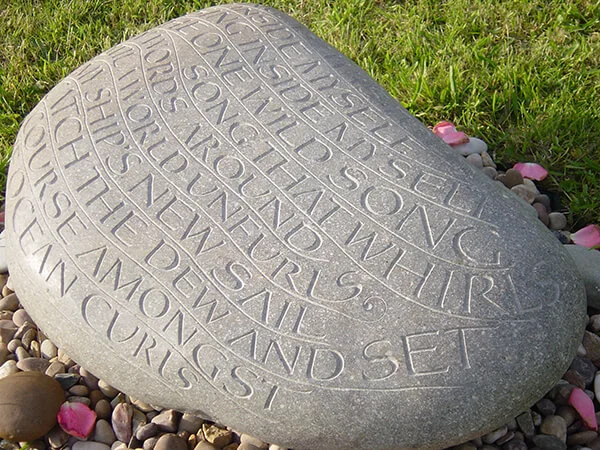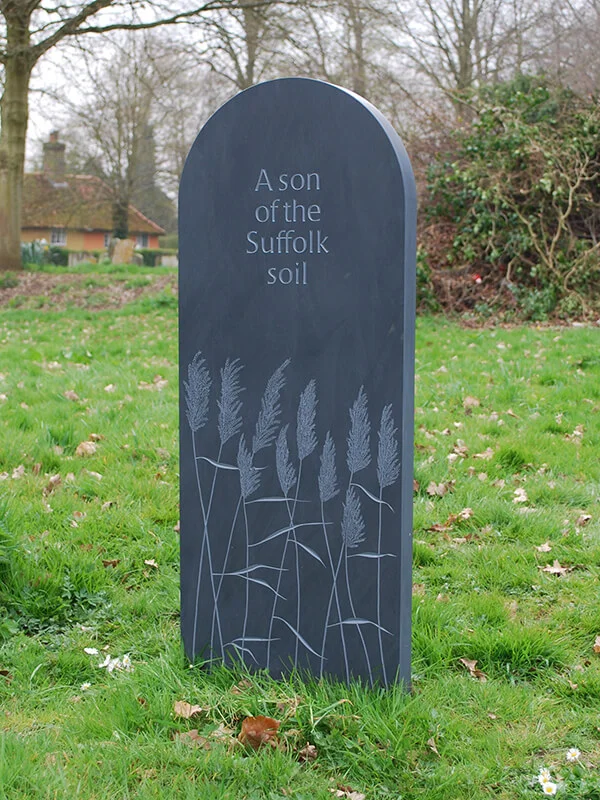
The expressive power of hand-carved lettering cannot be overstated. Letters that have been drawn and then carved by hand give the chosen words weight and meaning.
“It is perfect: modest, gentle and enduring, like our memories of Nicholas.” Libby Purves, client and patron of the Lettering Arts Trust, of the memorial to her son, Nicholas Heiney, pictured, by John Das Gupta.
“It is perfect: modest, gentle and enduring, like our memories of Nicholas.”
Libby Purves, client and patron of the Lettering Arts Trust, of the memorial to her son, Nicholas Heiney, pictured, by John Das Gupta.
Their sculptural  forms have a presence and a humanity that can’t be matched by a machine-made memorial. When an artist carves these letters, whether for a gravestone or a private sculpture, their spacing, depth and shape all contrive to create movement within meaning and give life and character to the letters. There is a solemn comfort in knowing that the carved words will enter the landscape, where they will remain for centuries.
The best headstones or gravestones express the character of the lost in a remarkable way. Whether highly decorative or restrained and simple, memorials made by artists are testaments to our love for a lost person. It is this act, the creation of a personal, individual tribute that can be immensely healing to the bereaved. Many of our clients find that the process of working with an artist is enormously comforting. Visiting their studio and discussing design ideas, you are comforted knowing that you’re creating something beautiful to honour their memory.
One client writes of the benefit of this collaborative process: “The first visit to the artist’s workshop was a revelation, and I was able to take my time. I was immediately aware of the great quality of the artist’s work and his wide range of approaches, his knowledge of materials and lettering. Every time I visit my husband’s grave I feel happy to have made him a headstone I love and that he would have loved. I have happy memories of the whole experience that took place at the lowest time in my life.”
Wherever possible, we recommend a visit to the artist’s studio.  You will be able to discuss the design, see examples of their work and look at samples of different materials available to understand how they affect the finished result.
Headstone by Stuart Buckle
Some people start with a clear idea of what they want in terms of style and wording, others are only just feeling their way. It isn’t necessary to have a specific idea, just a general sense of the overall feel of what you’re looking for – traditional or contemporary, elaborate or simple. Together you work on the look, the lettering and the wording.
You collaborate closely, using mementos such as photographs, favourite texts, letters and reminiscences to help inform the design. One of the most important skills an experienced artist offers, is the ability to help the client navigate their way through the design process, to whittle down the layers of memories to find the most important elements to inspire and inform the design.  It’s important to remember that this stage should not be rushed. The best artists demonstrate enormous patience and sympathy to help you make your choices. this is true regardless of whether you are commissioning a gravestone, plaque or a private memorial sculpture for your home or garden.
Every aspect of the memorial is variable.  The shape of the stone, the style and spacing of the inscription, the decoration and carving.
The memorial may be a flat surface to be written on, or a three-dimensional object, with different levels of relief. For the artist, all these design elements must work together to make a single statement, at the heart of which is the inscription itself.
The making process
After discussions, the artist will present to you their working drawings and an estimate.  The drawing will show in detail and to scale the shape of the stone and the lettering, any carved motifs or surface treatment.
It represents the artist’s interpretation of your ideas. You can ask for any changes at this stage, it is essential that you are happy with the design. If you are creating a headstone or plaque for a churchyard or cemetery, once approved by the relevant authorities, the artist will begin to work in your chosen material.
Over the ensuing months, you may wish to visit their studio to see the making in progress. When it is completed, the finished work will be professionally installed at its chosen site – be it a churchyard, garden or public space.  This gentle and intimate process; the empathy between the artist and the client; the completion and installation, all help to bridge the emotional journey from grief to commemoration.